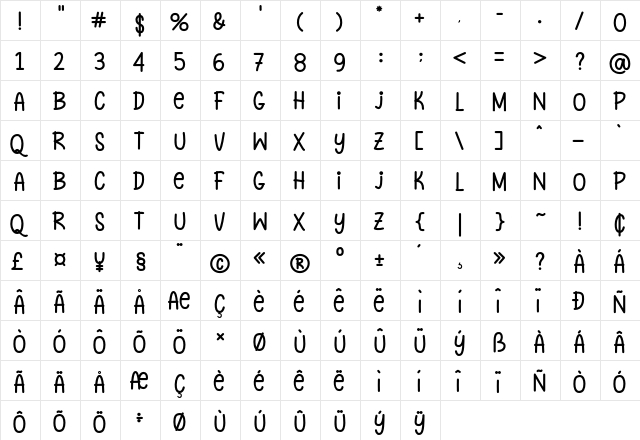
Holla Monday (personal Use) Regular Font Preview
Holla Monday (personal Use) Regular
Holla Monday (personal Use) Regular Font Details
| Foundry | Ardyana Types Studio |
| Designer | Ardyana Types |
Design Context for Holla Monday (personal Use) Typeface
Holla Monday (personal Use) offers clean, dependable letterforms without strong stylistic allegiance, making it a practical choice for designers who need flexibility.